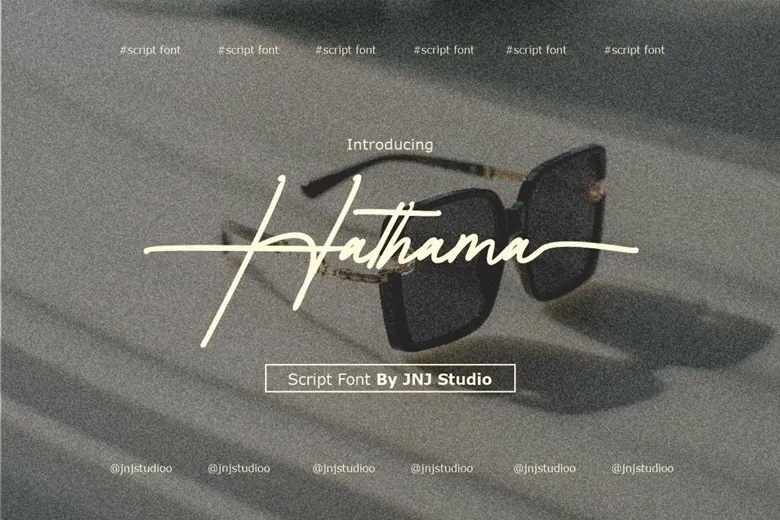
Hathama Font
Hathama is a modern signature handwritten font carefully designed to share that warm, friendly, and individual feeling. It has organic and fluid design that resembles the movement of pen on paper, therefore making your designs look natural and sincere.
Great for any projects that need a touch of hand or individuality, Hathama is perfect for invitations, logos, social media, captions, and more.
Hathama Handwritten Script Font